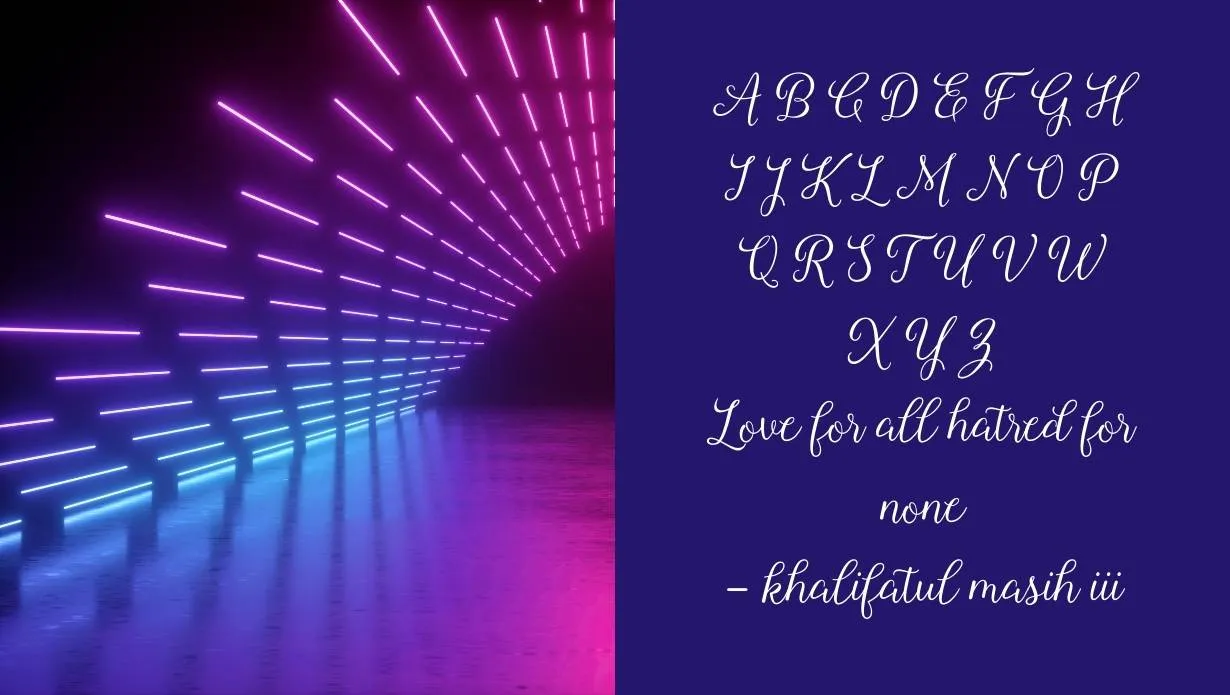
Roselina Font is a beautiful addition to your words, bringing a floral elegance. It’s like your letters blossoming into delicate petals. With Roselina Font, your writing transforms into a garden of beauty.
It’s like the sweet scent of roses, making your words feel graceful and enchanting. Pick Roselina Font when you want your writing to have the timeless charm of a blooming garden.
| Name | Roselina Font |
| Designer | Seniors Studio |